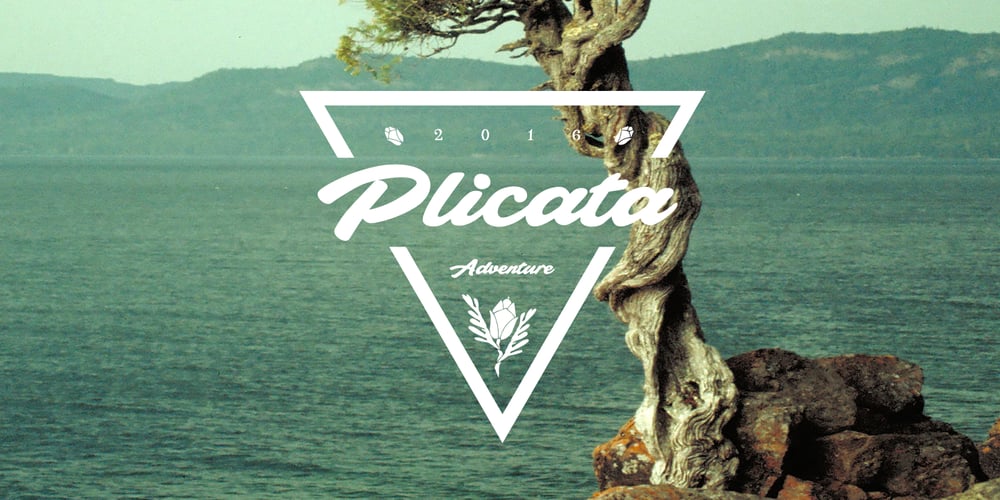
Plicata Font Family was designed by Måns Grebäck and published by Mans Greback. Plicata contains 1 styles and family package options. Plicata is a hand crafted typeface. It’s script style is legible and clear, and it brings an edge to your graphic projects. Created with care by Måns Grebäck, this is the perfect store front logo font.